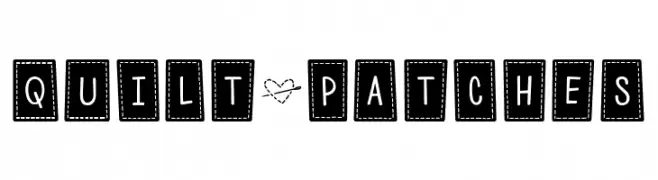
( Fonts by Des Gomez )
A playful, hand-drawn font with decorative, stitched-like details.
( Fonts by Vanessa Bays - bythebutterfly.com )
A whimsical, hand-drawn font with playful, nostalgic charm.
( Fonts by Hanoded )
A playful, hand-drawn font with a stitched, crafty appearance.
( Fonts by Galdino Otten )
A playful, hand-drawn font with bold, rounded letters and a sketchy outline.
A playful, patchwork-style font with a hand-stitched appearance.
A decorative font with a cross-stitch pattern, ideal for crafty designs.
( Fonts by Misti's Fonts )
A playful, stitched decorative font with bold, rounded characters.
( Fonts by P. Baudin )
A cross-stitch styled font with a handcrafted, whimsical appearance.